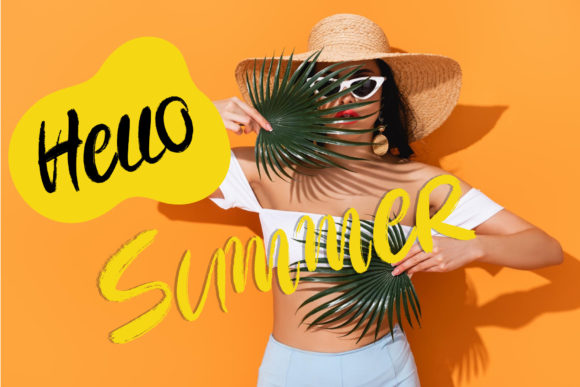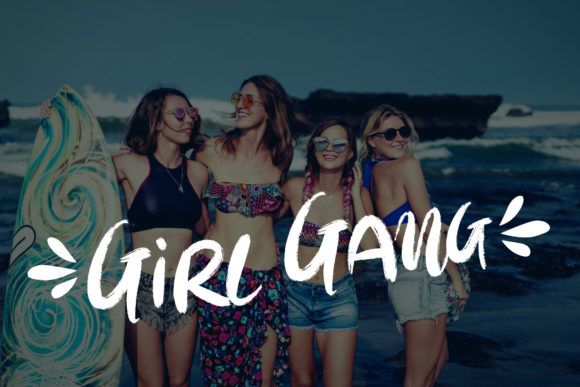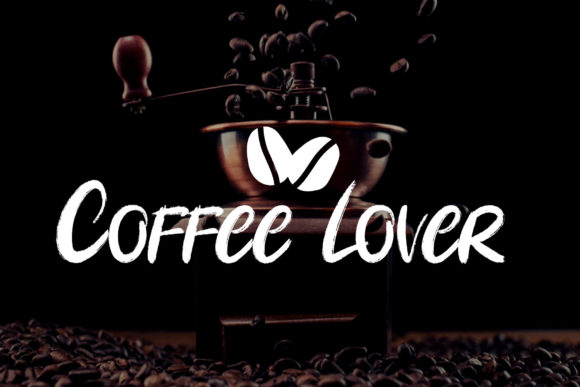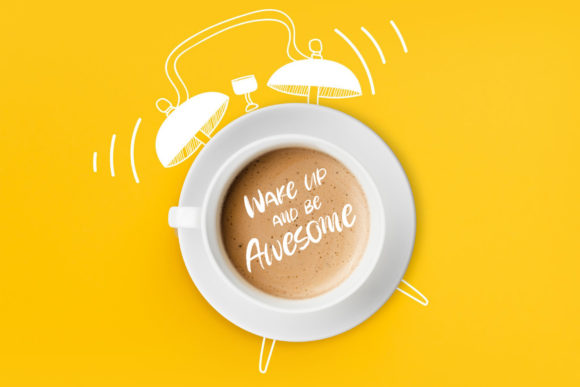
Introduction to My Girl Font
Have you ever stared at a blank canvas, eager to bring your creative vision to life? That’s exactly where My Girl Font comes in – a stunning, brushed handwritten font that’s about to revolutionize your design process. Its unique charm and character will elevate any branding project, from logos to t-shirt printing, and even sporting designs.
As a valuable design resource, My Girl Font is perfect for creative projects that require a high-quality, personalized touch. With its transparent background, you can easily overlay it on any image or design element, giving you endless possibilities. And the best part? It’s available for free download, making it an absolute must-have for designers of all levels.
Key Features of My Girl Font
- High-quality design resource ideal for creative projects, offering a unique and feminine touch.
- Includes a range of characters and glyphs, including uppercase and lowercase letters, numbers, and punctuation marks.
- Available in a single weight, making it suitable for a variety of design projects, from logos to typography-based designs.
- Resolution-independent, ensuring that the font remains clear and legible at various sizes and resolutions.
- Designed to be a versatile design resource, perfect for use in a range of creative projects, from digital art to print media.
Honest Review: My Girl Font
I recently came across the My Girl Font, a free download that caught my attention for its unique and playful design. As a designer, I appreciate high-quality resources that can elevate my creative projects, and this font definitely delivers.
- Cute and whimsical design that’s perfect for children’s content or feminine themes
- Transparent background makes it easy to use on any color or background
- High-quality design that’s clear and legible, even at larger sizes
- Only a few styles and weights are available, which may limit its versatility
- Might not be suitable for more formal or professional projects
Overall, the My Girl Font is a great addition to any design resource library. Its unique design and transparent background make it easy to use and customize for a variety of creative projects. While it may have some limitations, I appreciate its high-quality design and would recommend it to designers looking for a playful and feminine font.
The My Girl Font is a versatile font that can be used in a variety of creative projects, including blog posts, social media graphics, and business presentations. Its high-quality design and transparent background make it an ideal choice for designers looking to create a professional and modern look.